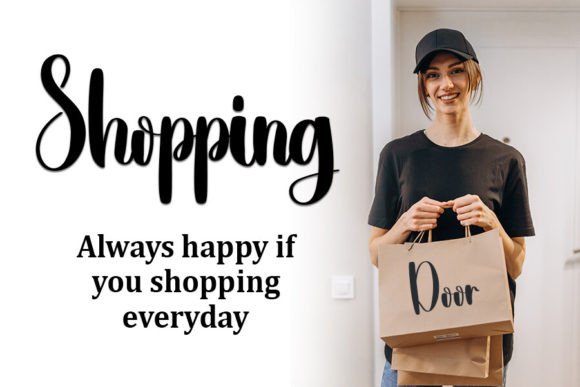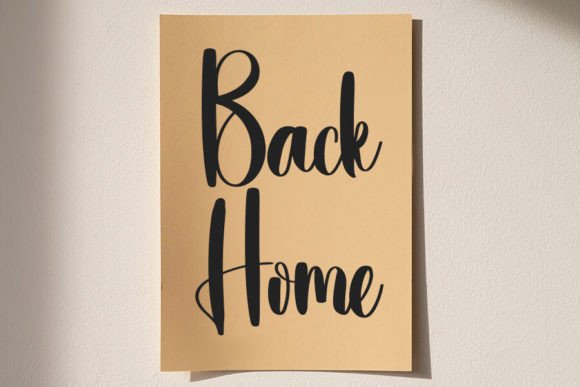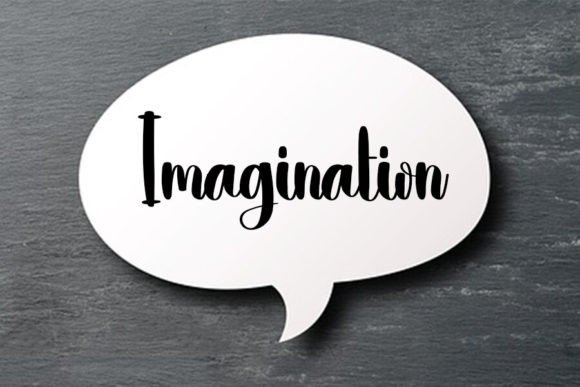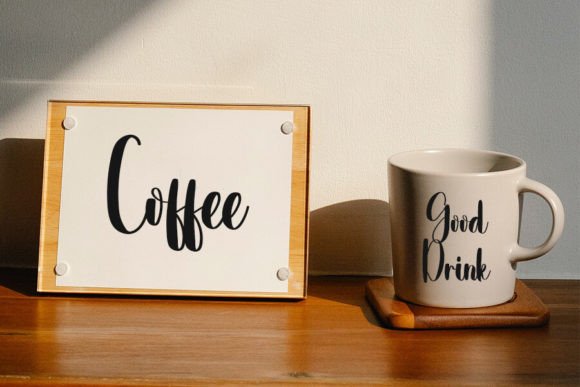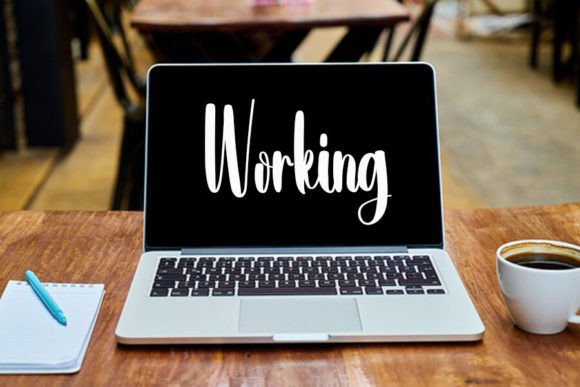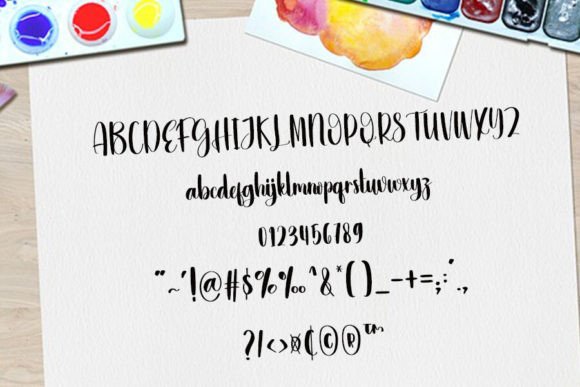
Unleash Your Creativity with Adventure Font
You know that moment when a spark of inspiration strikes, and your creative juices start flowing? You’re brainstorming ideas for your next project, and the words start flowing effortlessly onto the page. It’s a feeling that’s hard to replicate, but with the right tools, you can capture that magic and bring it to life. For designers, finding the perfect font can be the key to unlocking that creative potential.
That’s where Adventure Font comes in – a stylish handwritten font that combines a contemporary atmosphere with impeccable form. Inspired by timeless classic calligraphy, this font is designed to elevate your projects and make them truly unforgettable. With its balanced and varied design, Adventure Font is the perfect companion for any creative endeavor.
Adventure Font Key Features
- Font Style: A unique blend of fantasy and adventure, perfect for games, comics, and fiction-related projects.
- Character Set: Includes a wide range of characters, including uppercase and lowercase letters, numbers, punctuation marks, and special characters.
Adventure Font Review
Overall, I’m quite impressed with the Adventure Font. ✨ It has a unique, rugged feel that’s perfect for outdoor or action-themed projects. The font’s bold lines and quirky character shapes give it a sense of personality that’s hard to find in more generic fonts.
- Unique character shapes and bold lines give the font a distinctive look
- Works well for outdoor, action, or adventure-themed projects
- Highly legible, even at smaller font sizes
- May not be suitable for projects that require a more traditional or elegant look
- Some characters may not be ideal for body text, as they can be quite busy
- Not as versatile as some other fonts, with limited language support
While the Adventure Font has its limitations, I think it’s a great choice for the right project. Its unique look and high legibility make it a great option for outdoor or action-themed projects, and its bold lines give it a sense of personality that’s hard to find in other fonts.
Getting the Most Out of Adventure Font
To get the most out of Adventure Font, use it to create bold headings and titles that draw attention to important information. Use it in conjunction with other design elements, such as images and graphics, to create visually appealing designs.
Adventure Font is commonly used in travel and outdoor branding, adventure sports marketing, and travel blog design. It’s also used in creative and artistic projects where a unique and adventurous feel is desired.